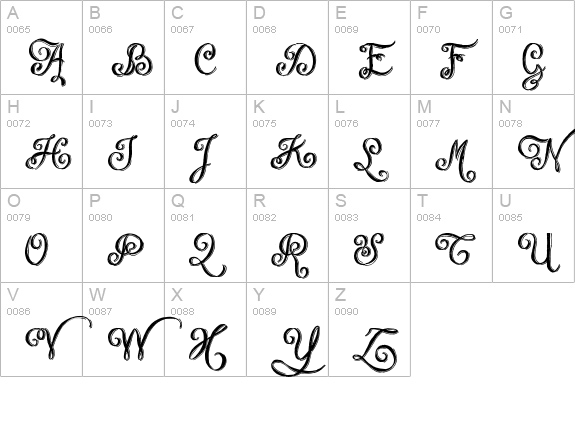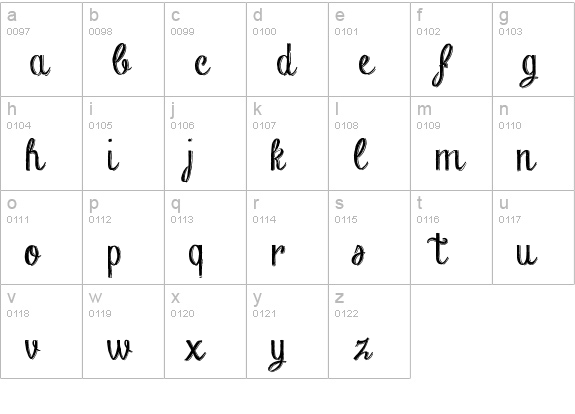
Chalk-hand-lettering-shaded_demo Font Details
Chalk-hand-lettering-shaded_demo font is a stunning display font that will add a touch of creativity and charm to any project. Its unique hand-drawn style captures the essence of chalkboard art, making it perfect for a variety of design purposes, including signage, posters, invitations, and more. This font features beautifully shaded letters that give it a three-dimensional effect, adding depth and dimension to your designs. With its playful and whimsical vibe, Chalk-hand-lettering-shaded_demo font is sure to grab attention and make a lasting impression. The best part? This font is absolutely free! You can freely download Chalk-hand-lettering-shaded_demo font at FontsMarket.com, a reliable and trusted source for high-quality fonts. Whether you're a professional designer or a hobbyist, this font is a must-have in your collection. Get creative and explore the endless possibilities with Chalk-hand-lettering-shaded_demo font. Its versatility and eye-catching design will elevate your projects to the next level. So don't wait, download this amazing font today and let your imagination run wild!